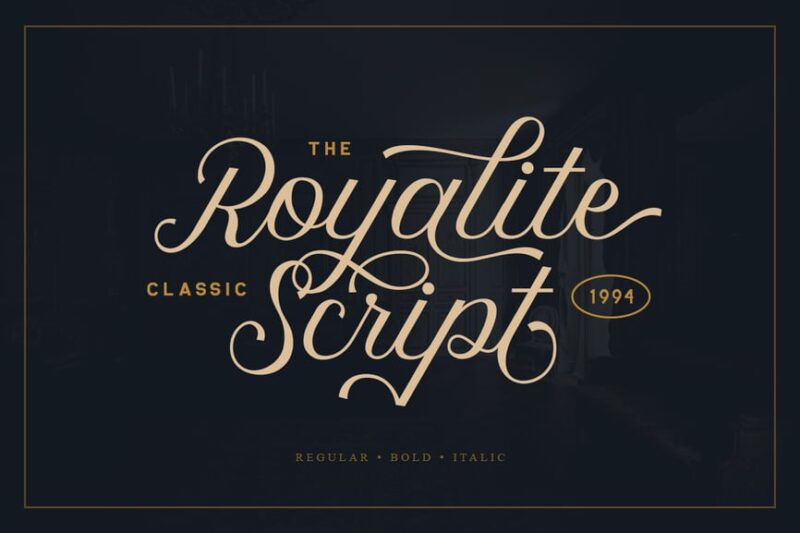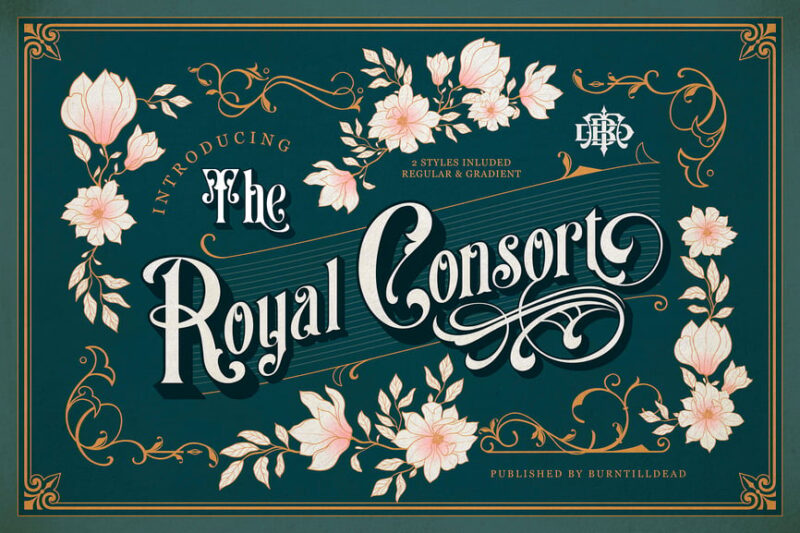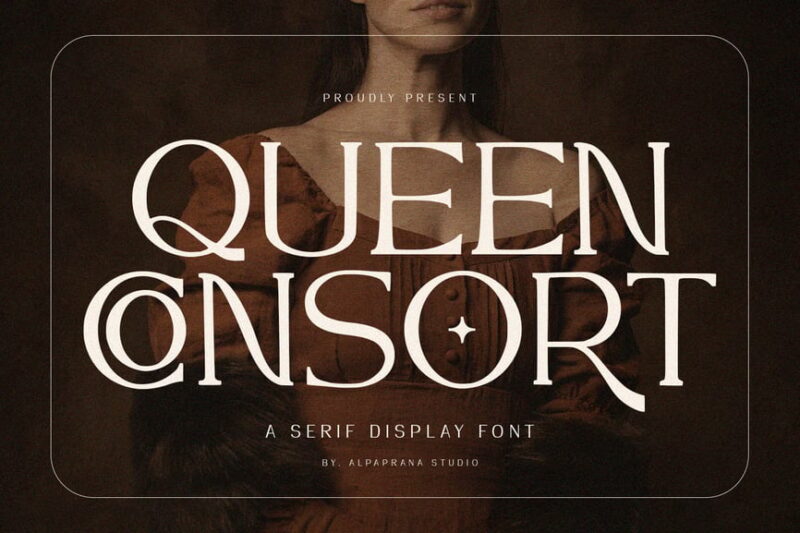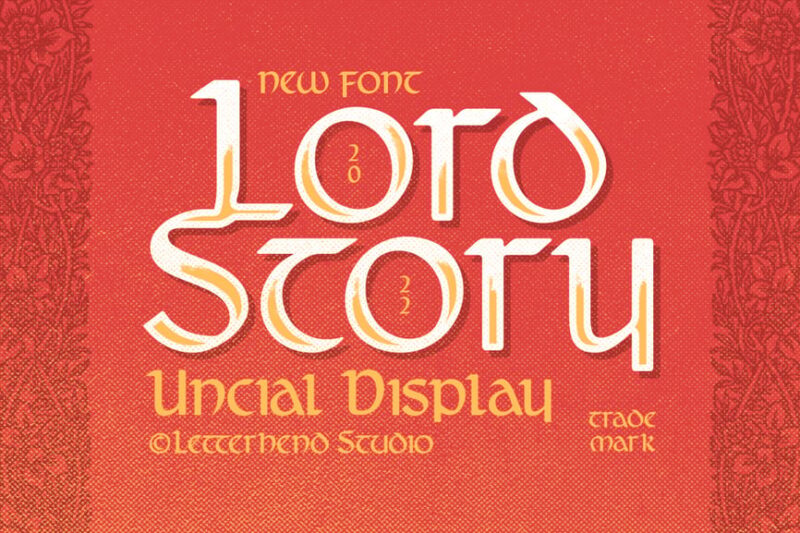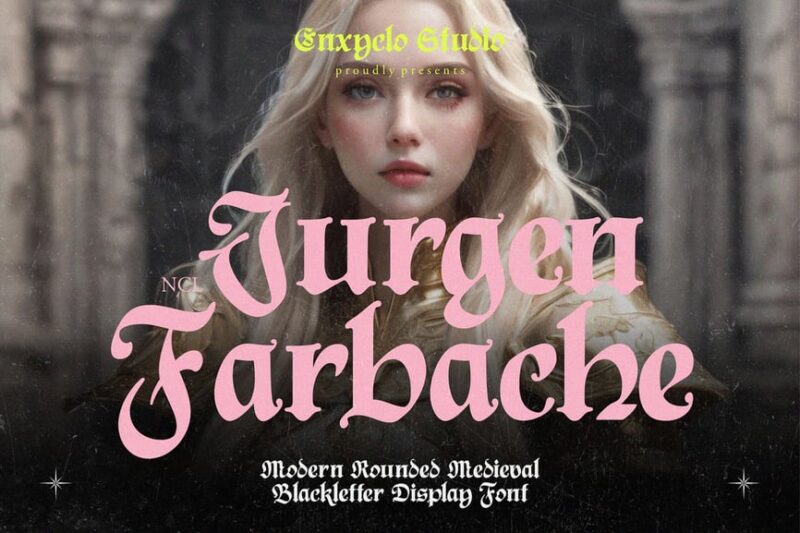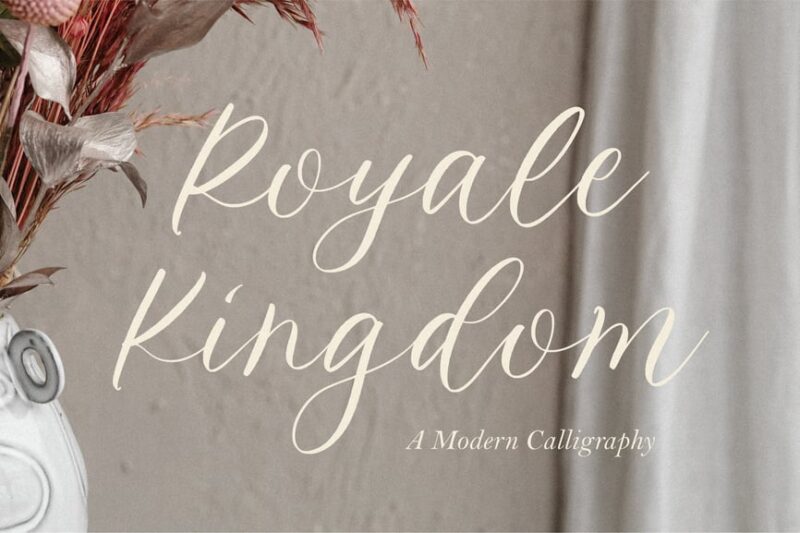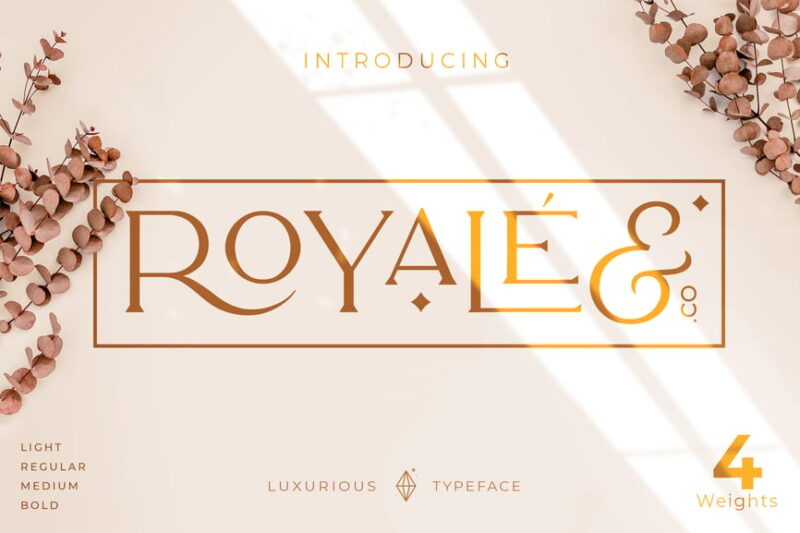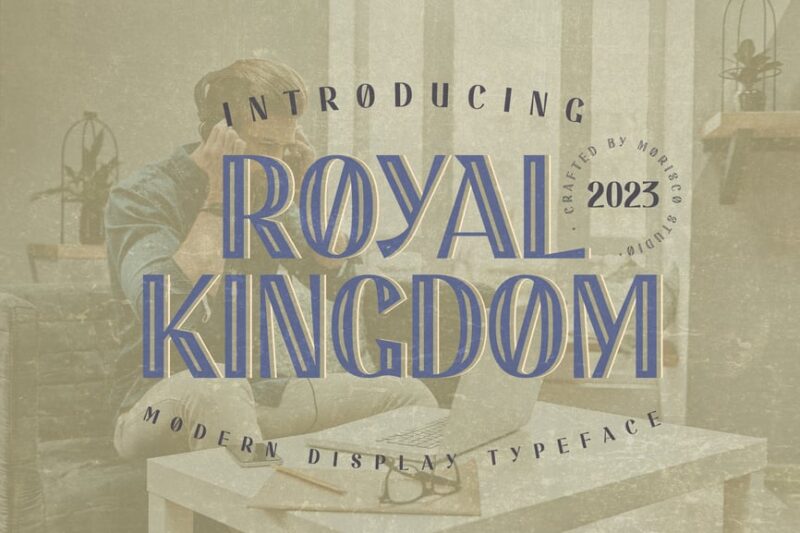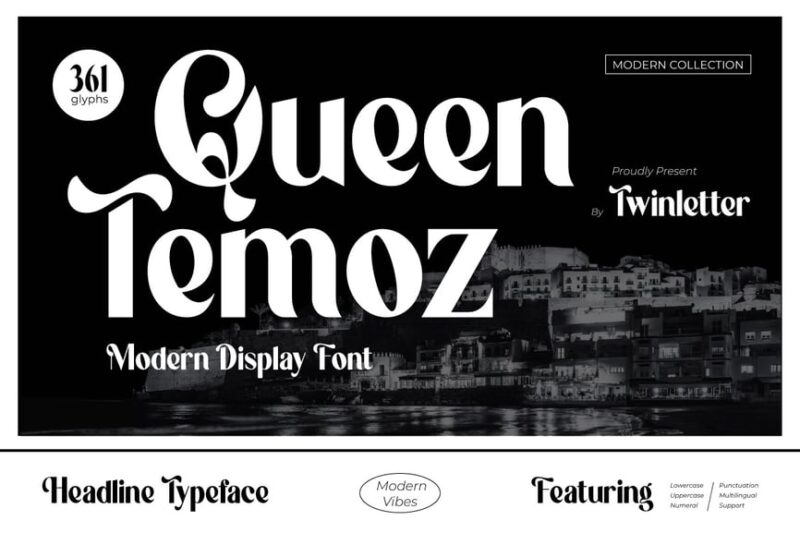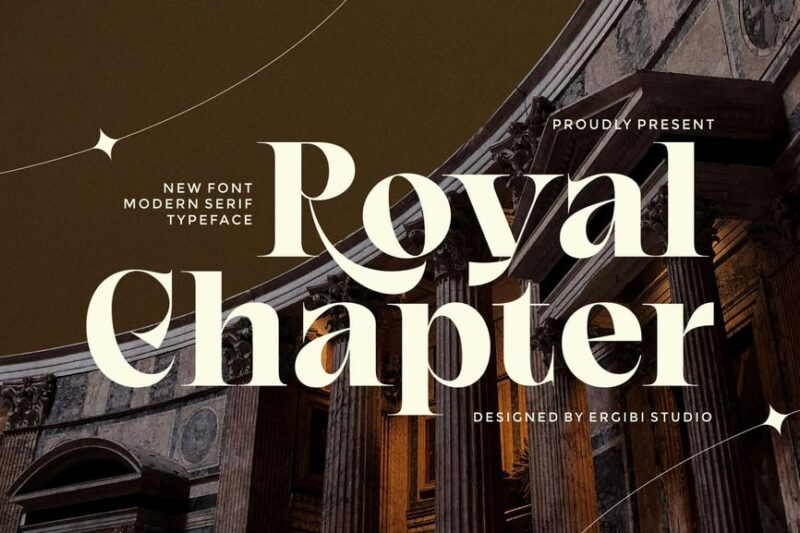
32 Royal Fonts with Elegant Poise and Majesty in 2026
I’ve been obsessing over royal fonts for years, and here’s what I’ve discovered: they’re basically the typographic equivalent of a perfectly tailored tuxedo. Instant class, undeniable presence, and that mysterious quality that makes everything look more expensive.
Whether you’re designing for a luxury hotel, crafting wedding invitations that need to scream “elegance,” or building a brand that demands respect, royal fonts are your secret weapon. They whisper authority instead of shouting for attention.
Ready to discover which royal fonts are ruling the design world in 2026? Let’s dive into the typography that makes kings and queens jealous!
The Most Majestic Royal Fonts of 2026
Not all fonts are born equal, and when it comes to royal typography, some truly reign supreme. I’ve curated a collection of the most regal typefaces that will add instant nobility to your designs:
Royalite Script Family
Royalite Script Family is an elegant and royal-inspired cursive font. It features flowing curves and ornate details, perfect for creating luxurious and sophisticated designs with a regal touch.
The Royal Consort
The Royal Consort is a decorative serif font with a royal and queenly aesthetic. Its majestic letterforms and refined details make it ideal for projects requiring a noble and dignified appearance.
Queen Consort
Queen Consort is a serif font with a princess and fairy-tale inspired modern design. Its delicate and whimsical characteristics make it perfect for creating enchanting and magical designs with narratives.
Lord Story
Lord Story is a decorative sans-serif font with medieval influences. Its bold and dramatic letterforms evoke a sense of ancient nobility and dark romance, ideal for historical or fantasy-themed designs.
NCL Jurgen Farbache – Medieval Rounded Blackletter
NCL Jurgen Farbache - Medieval Rounded Blackletter
NCL Jurgen Farbache is a decorative Irish-inspired font with a medieval twist. Its rounded edges soften the traditional sharp angles, creating a unique blend of historical authenticity and modern readability.
Royale Kingdom – Modern Calligraphy Logo Font
Royale Kingdom - Modern Calligraphy Logo Font
Royale Kingdom is a modern calligraphy font with a royal and ornate flair. Its fluid strokes and decorative elements make it perfect for creating elegant logos and branding materials with a contemporary regal touch.
Royale Luxurious Typeface
Royale Luxurious Typeface is a versatile gold font family encompassing serif, sans-serif, decorative, and script styles. Its opulent design and varied options make it ideal for luxury branding and high-end logo creation.
Royal Kingdom – Cartoon Game Font
Royal Kingdom - Cartoon Game Font
Royal Kingdom is a playful sans-serif and script font designed for cartoon games. Its funky and energetic character makes it perfect for creating lively, game interfaces and children’s content.
Royal Kingdom – Modern Display Typeface
Royal Kingdom - Modern Display Typeface
Royal Kingdom is a modern sans-serif display font with a royal theme. Its inline design adds depth and interest, making it ideal for creating eye-catching headlines and titles with a contemporary regal feel.
Queen Temoz – Modern Display Font
Queen Temoz - Modern Display Font
Queen Temoz is a modern sans-serif display font with a princess-inspired twist. Its sleek and stylish design combines royal elegance with contemporary aesthetics, perfect for fashion and lifestyle branding.
Queen Emirates
Queen Emirates is a serif font with a royal and badge-like quality. Its strong, authoritative letterforms make it excellent for creating emblems, crests, and official-looking designs with a regal touch.
Royal Chapter
Royal Chapter is a luxurious serif font with a royal flair. Its refined and elegant design makes itforms are perfect for high-end branding, editorial design, and projects requiring a sophisticated, noble appearance.
Queen
Queen is a decorative serif font with a royal and crown-inspired design. Its majestic and ornate characters make it ideal for creating regal logos, titles, and designs that require a strong, monarchical presence.
Crimson Queen – Modern Serif
Crimson Queen - Modern Serif
Crimson Queen is a modern serif font with royal and kingly attributes. Its magical take on classic serif design makes it versatile for both traditional and modern projects requiring a touch of regality.
Kensington Palace Elegant Serif Font
Kensington Palace is an elegant serif font inspired by luxury and high fashion. Its refined letterforms and subtle details make it perfect for creating sophisticated designs for upscale brands and editorial content.